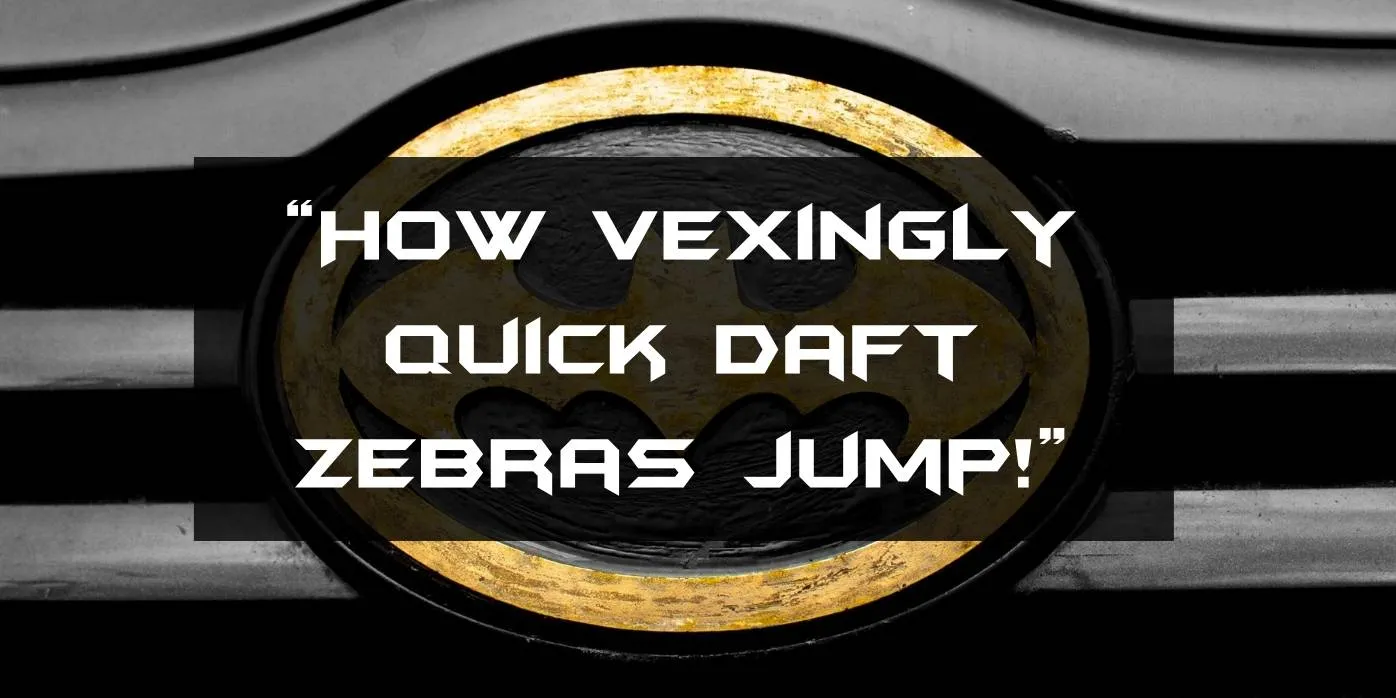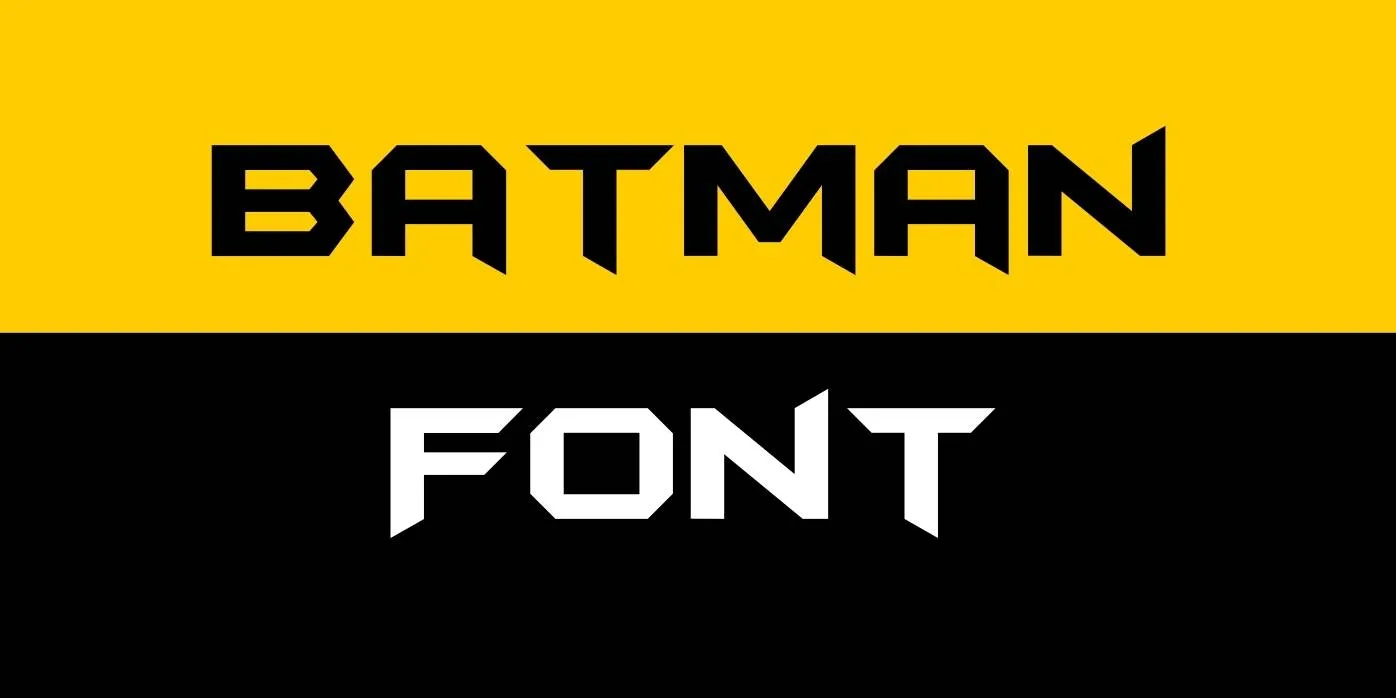
Batman Font
Batman Font belongs to the display typeface. The main developer of this stunning font family is Bob Kane. This cute font family was first released on January 12, 1989. This typeface is developed on the base of the logo of a very famous movie.
The shapes of the letters in the Batman Font are very similar to the Gotham family. The difference is that Gotham Font has rounded corners while Batman Font has sharp ones. This makes the appearance of this Font a little more “aggressive”. It is not included in google font.
This stylish font is perfect for any design that needs a touch of superhero style. Its special Character set contains various lightning shapes and symbols. So, you can create your own unique design using this, Font. Lego Font is alternative to this typeface and best for different projects.